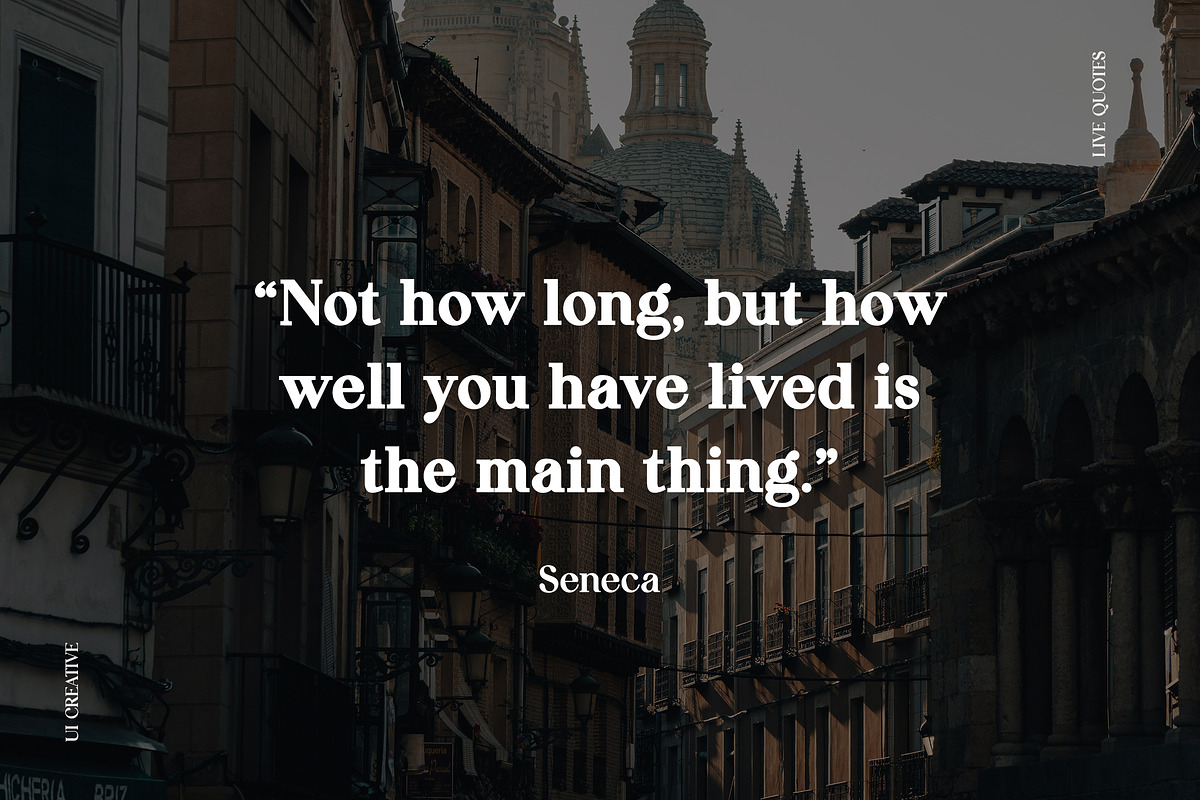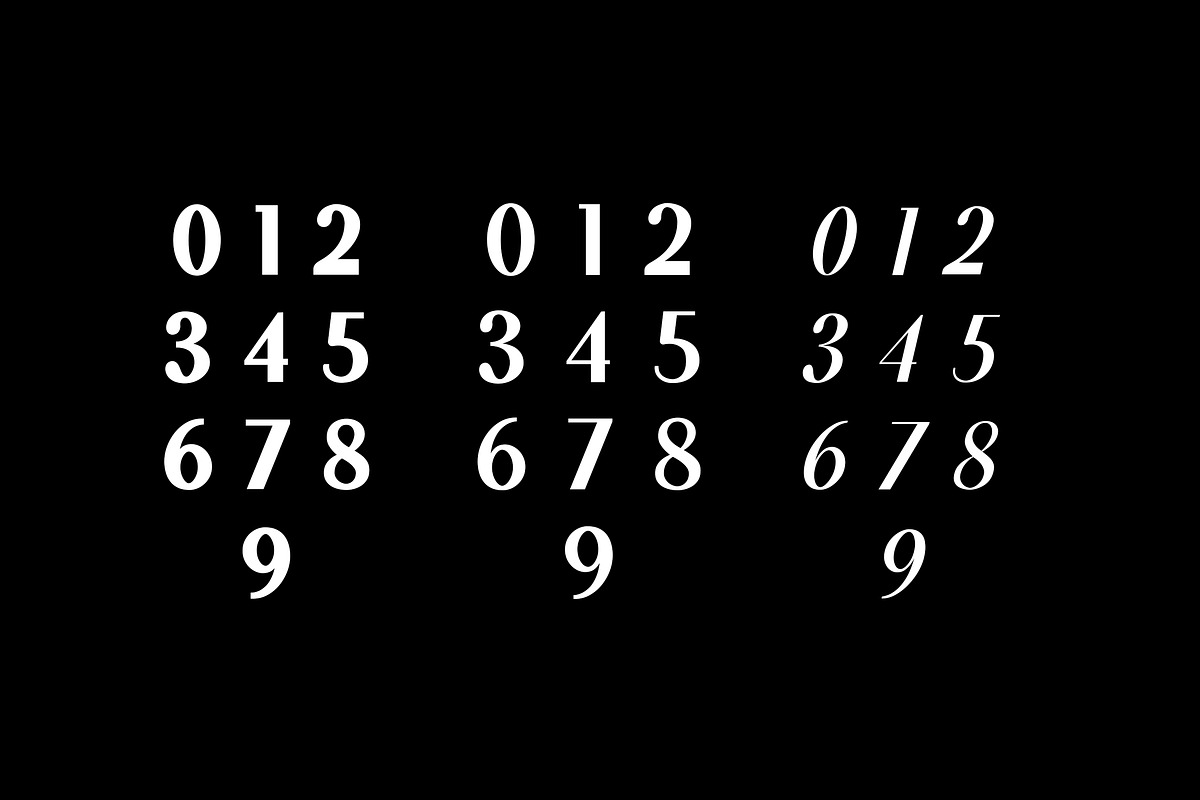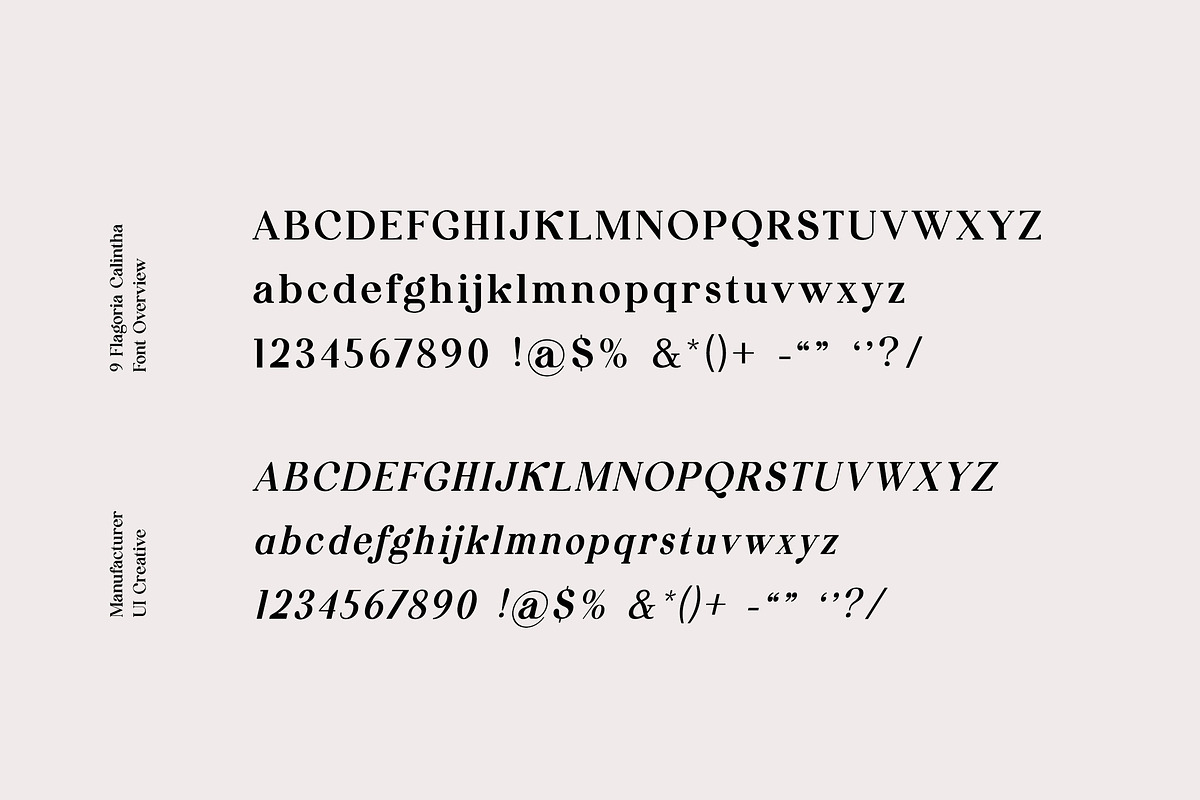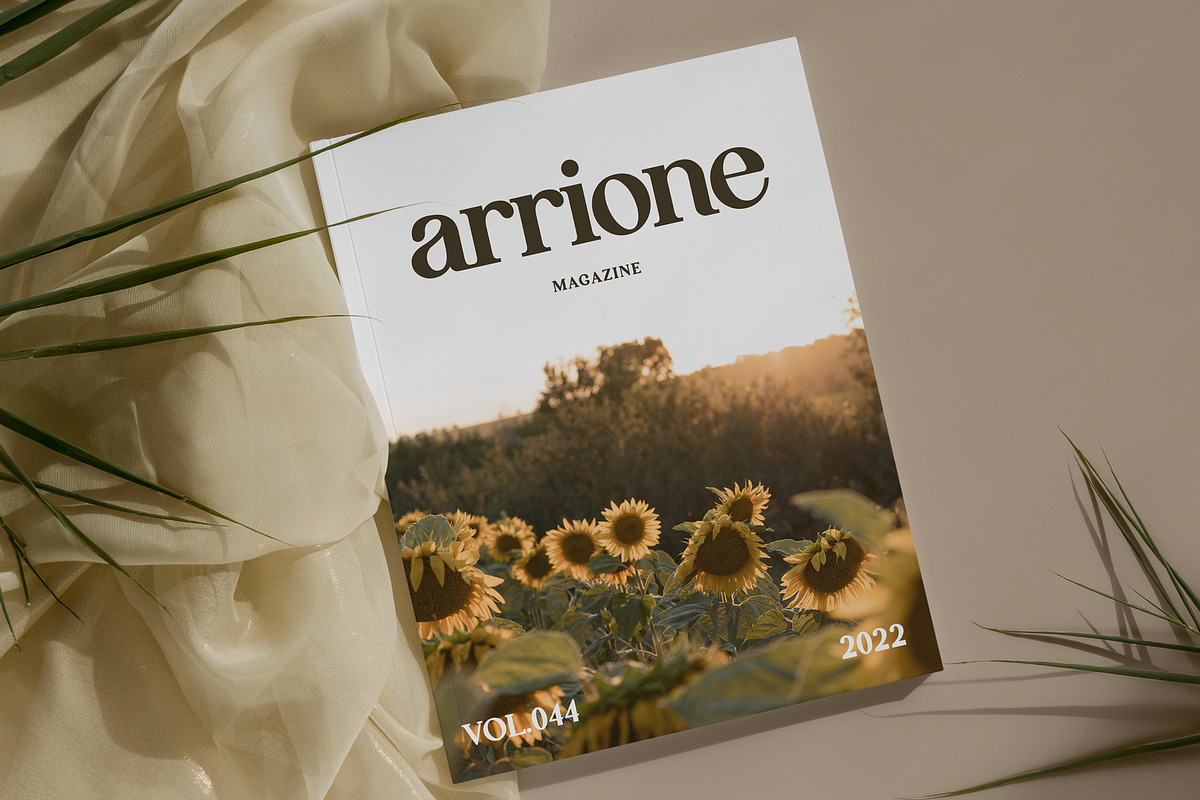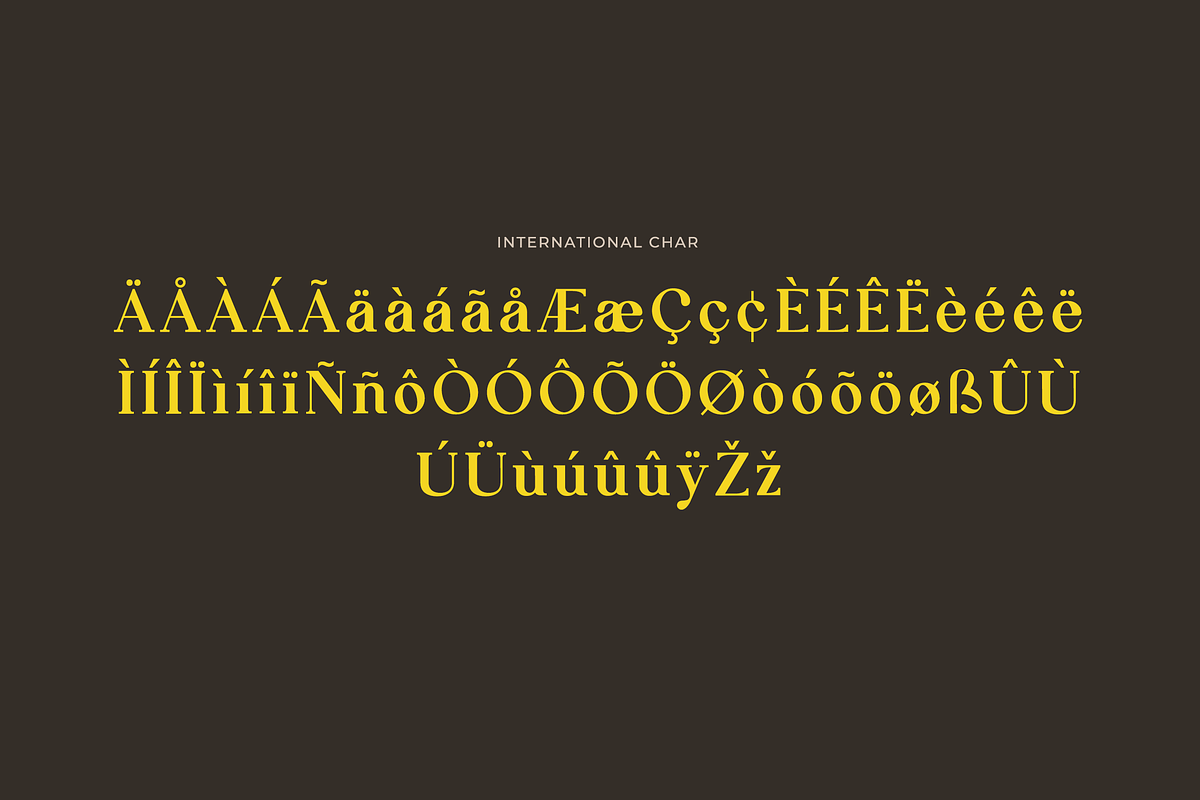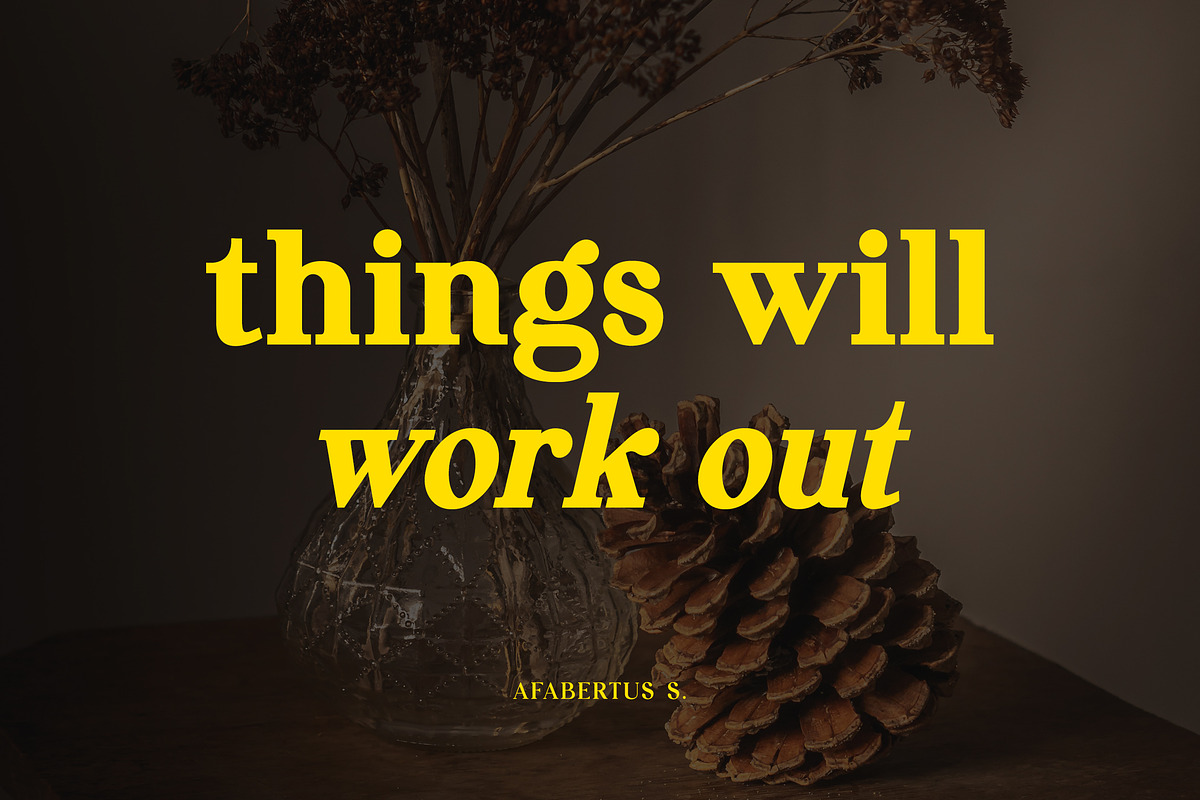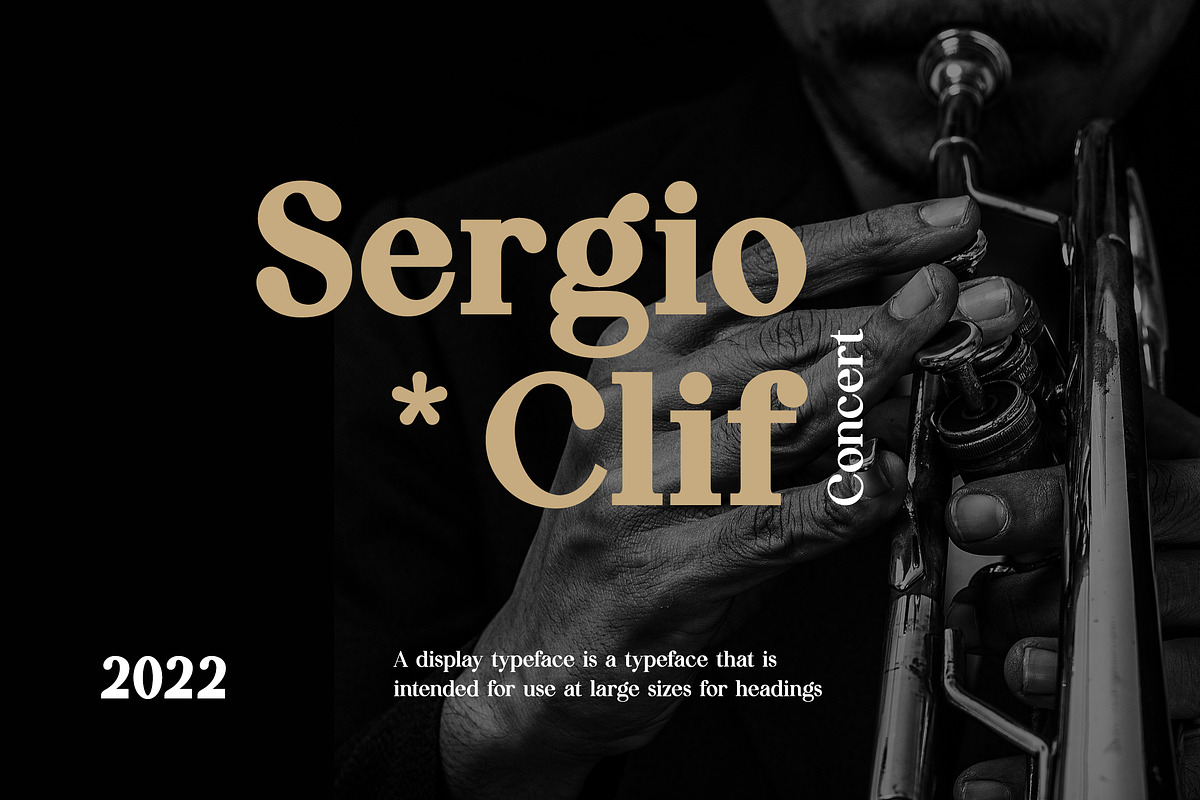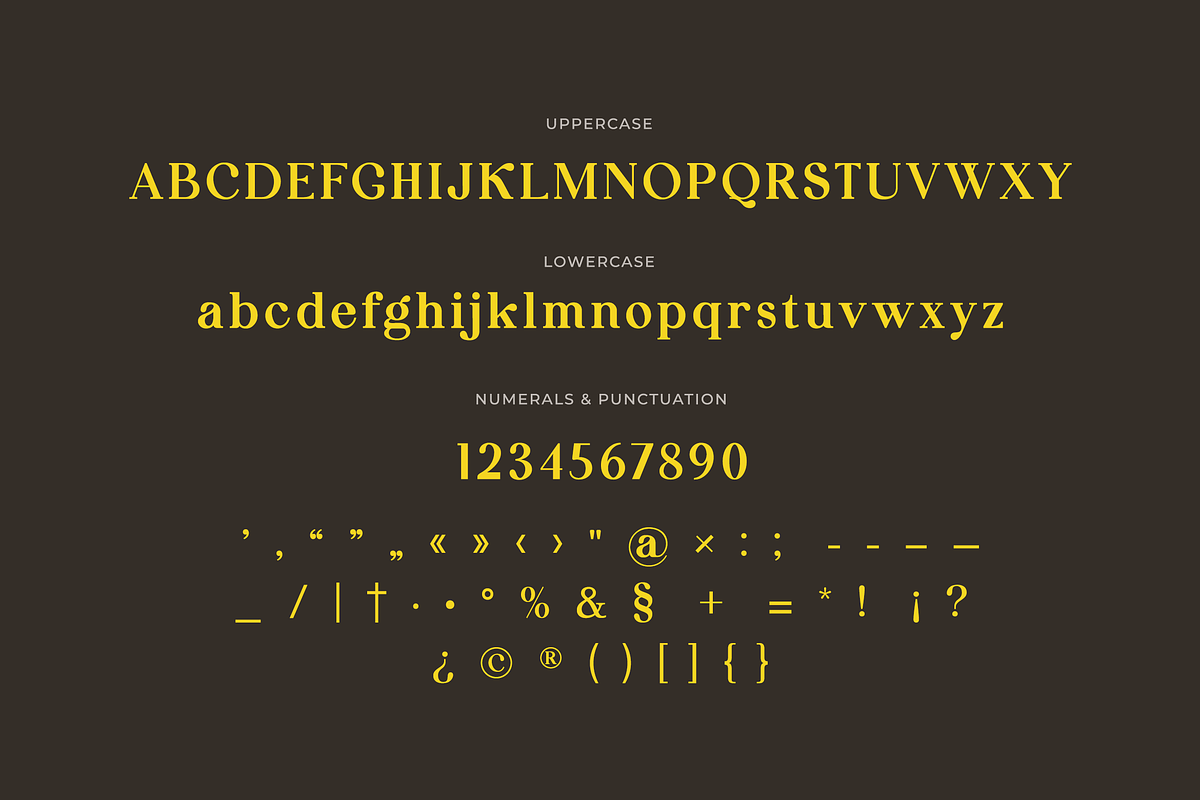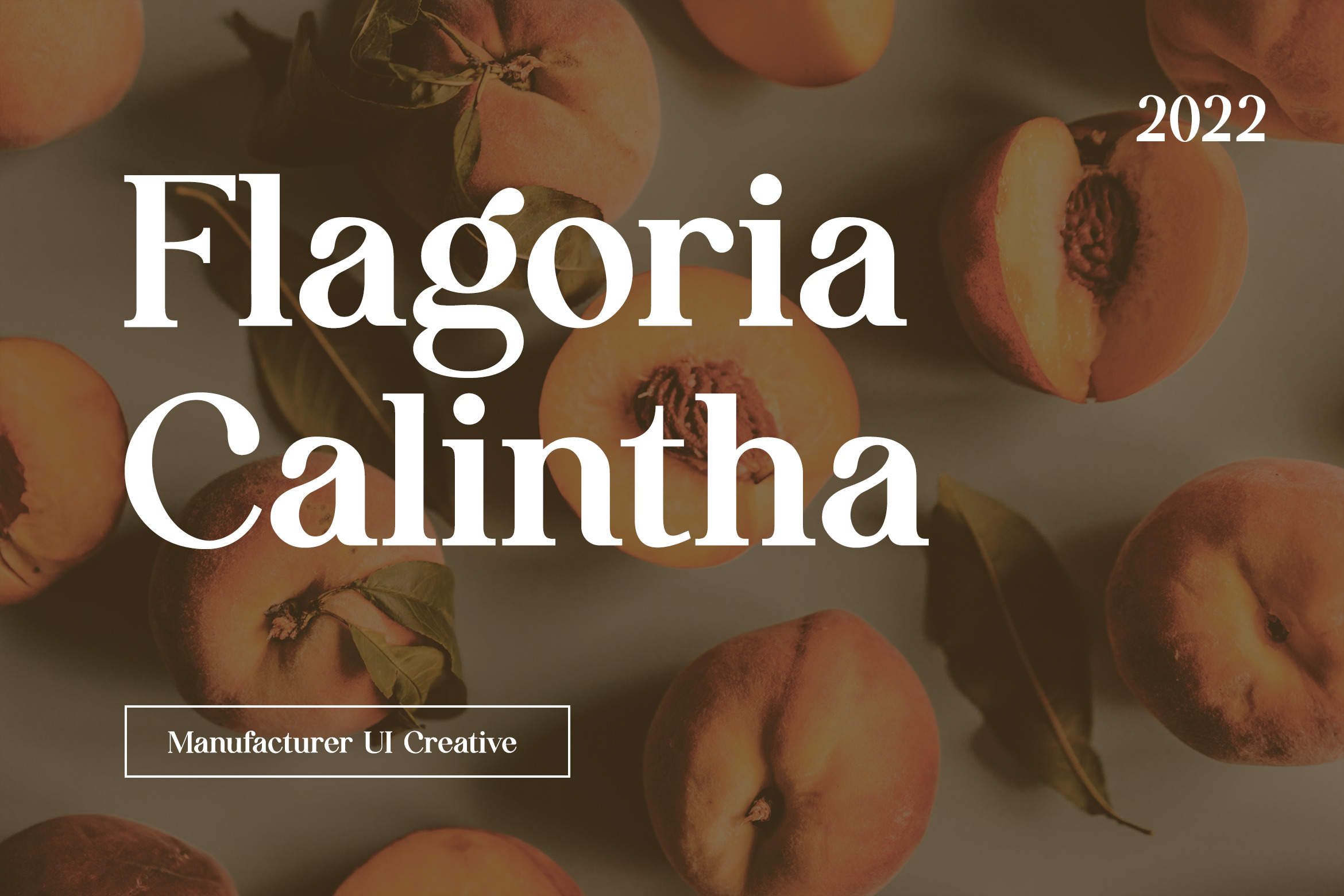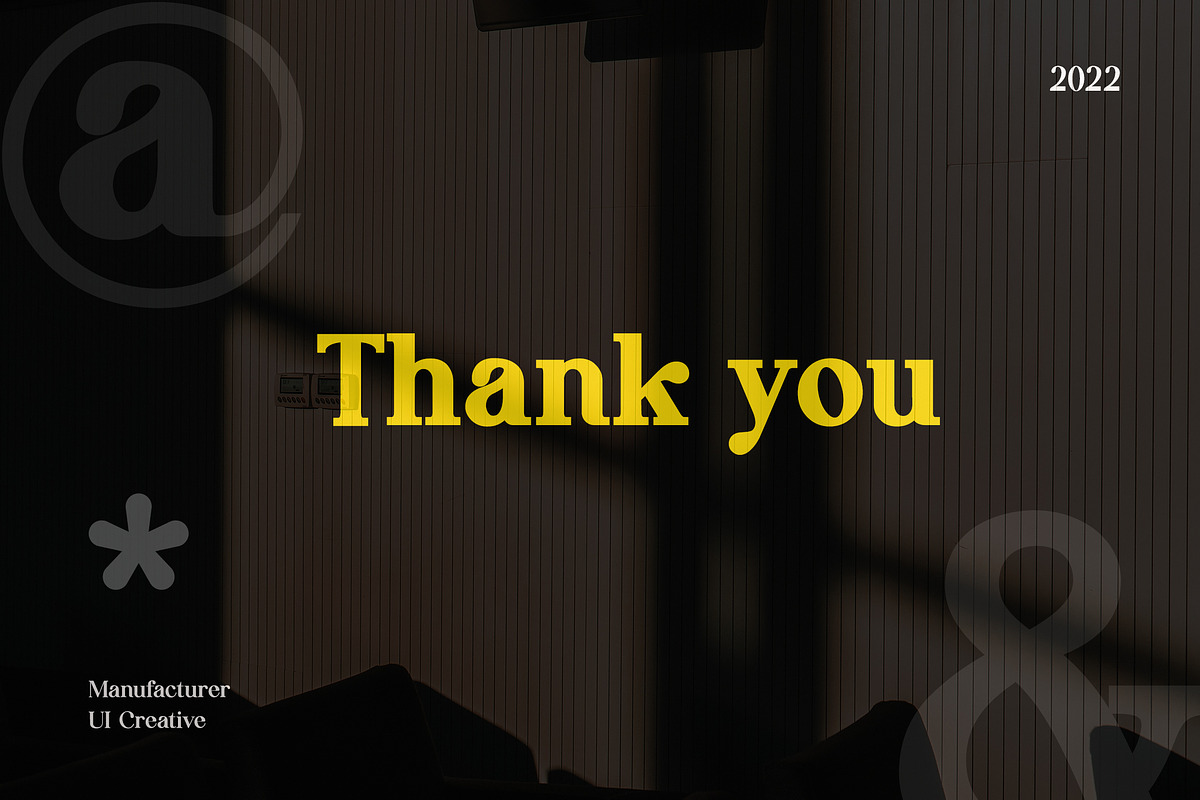
Flagoria Calintha Serif Font Family
Introducing our new product the name is Flagoria Caintha Serif Font Family comes with 9 different weights. Modern Serif font that feels beautiful classy, elegant, and modern. This font is perfectly suited for a wide variety of projects, such as signature, stationery, logo, wedding, typography quotes, magazine or book cover, website header, clothing, branding, packaging design, and more. Also for fashion-related branding or editorial design and displays both masculine and feminine qualities.